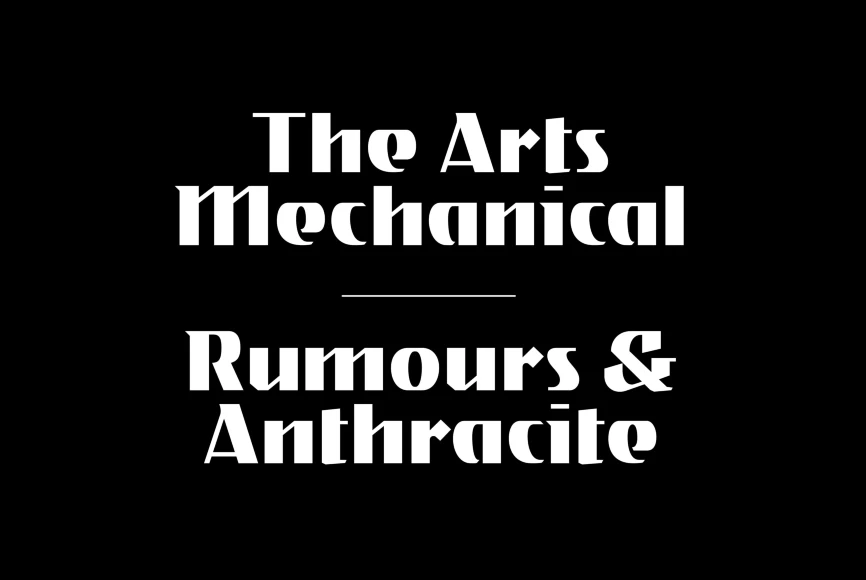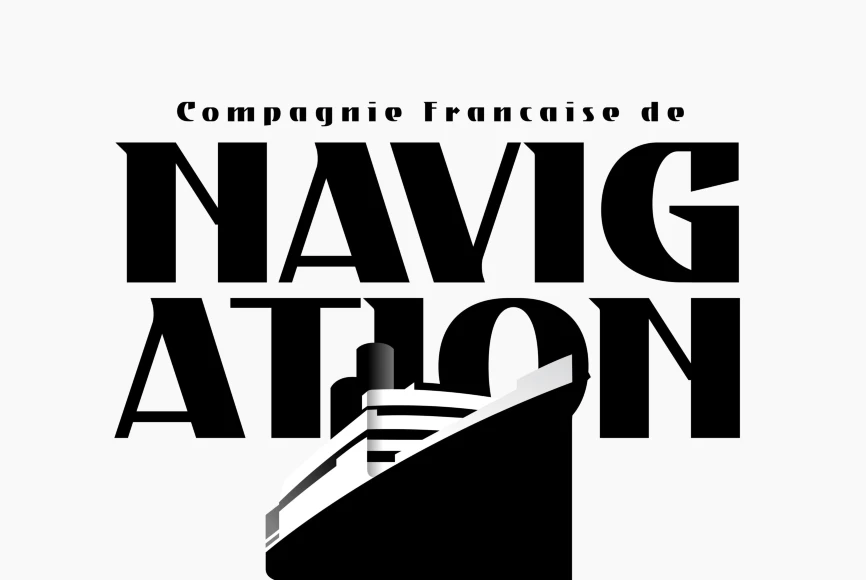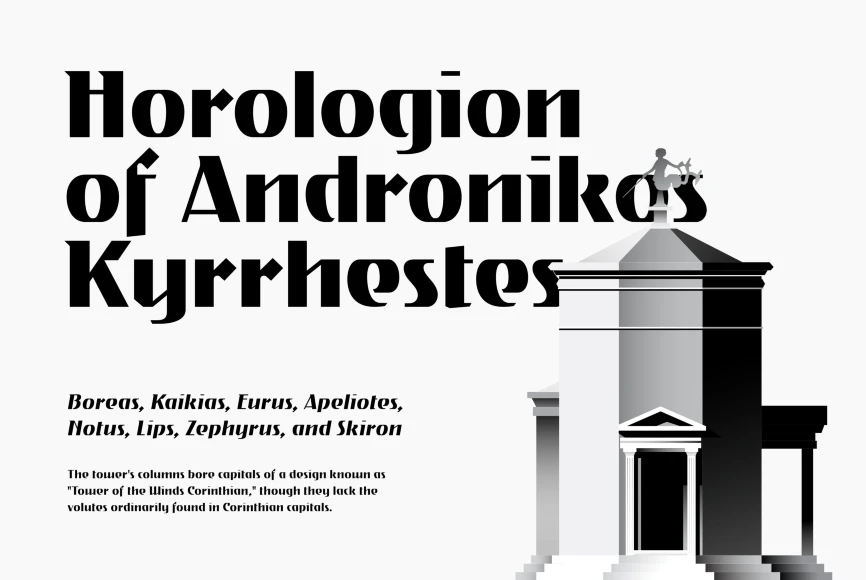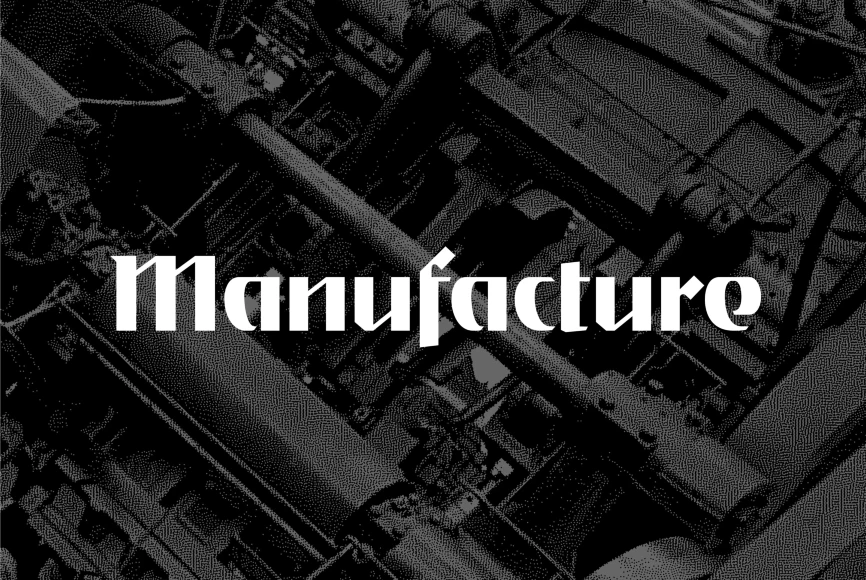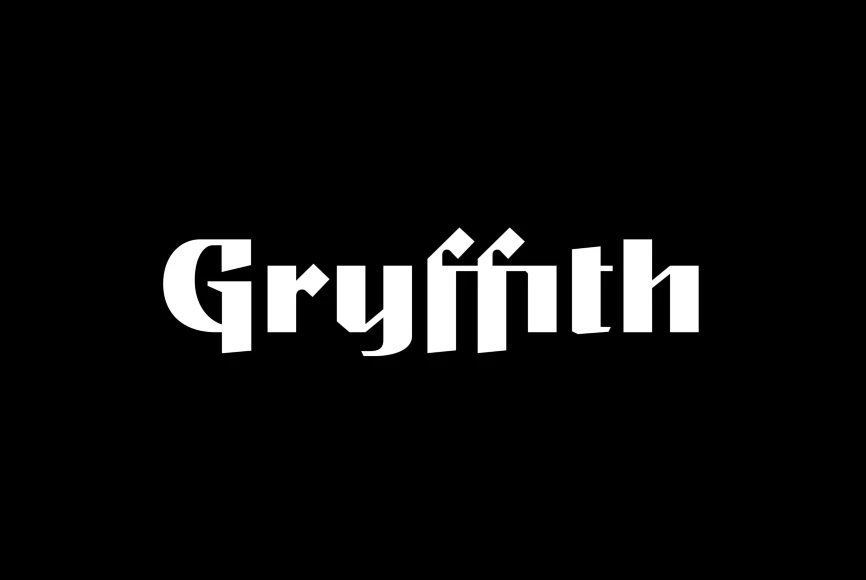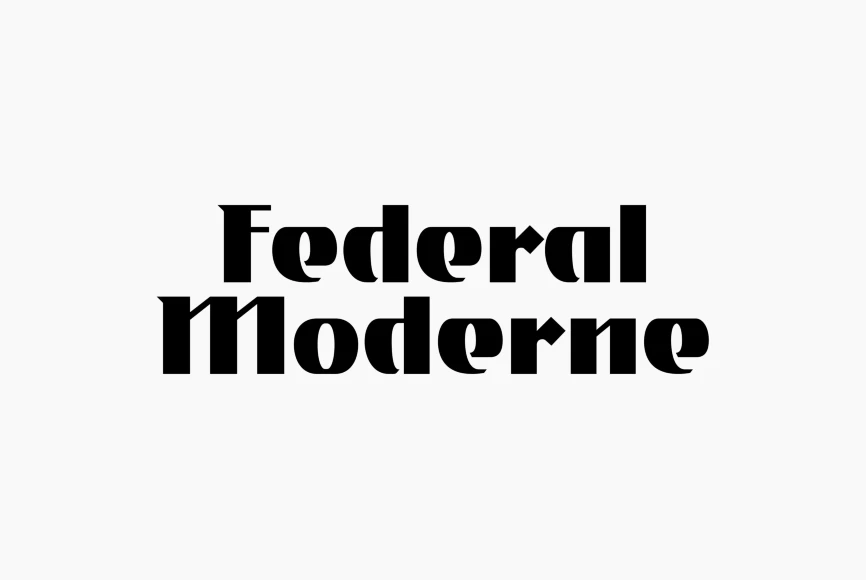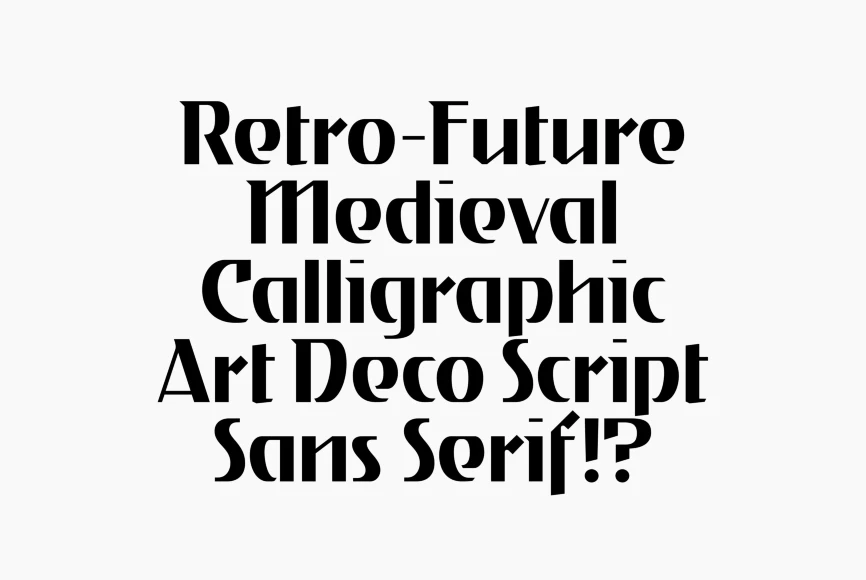
Gryffith
Gryffith is a display typeface blending the form of a sans-serif with the rhythm of handwriting and the heft of blackletter. A unique choice for logos, headlines, and posters.